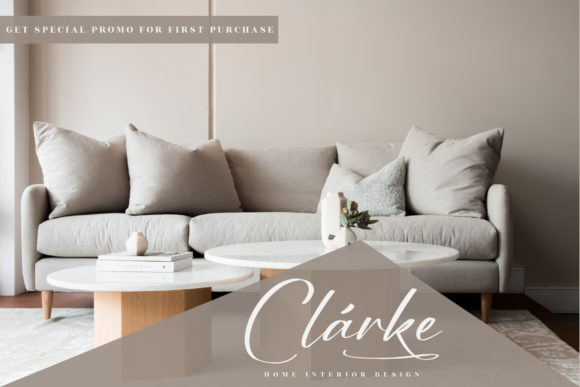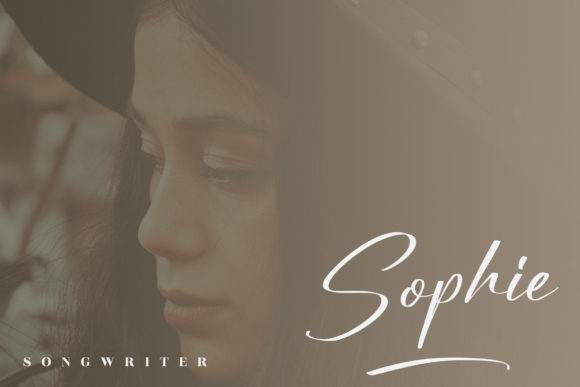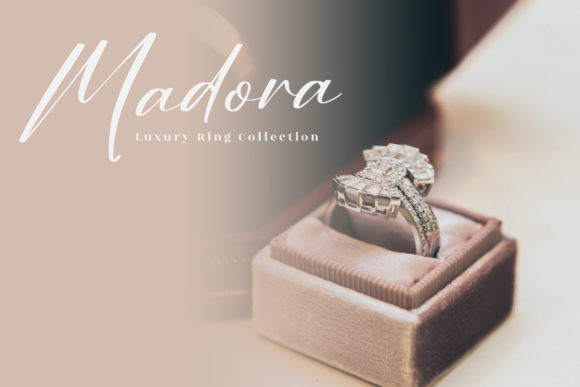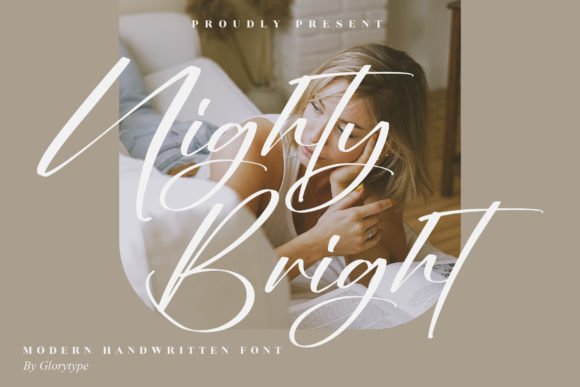
Introduction to Nighty Bright Font
Nighty Bright is a magical script font carefully created with a touch of elegance.
This font is PUA encoded which means you can access all of the glyphs and swashes with ease .
Key Features of Nighty Bright Font